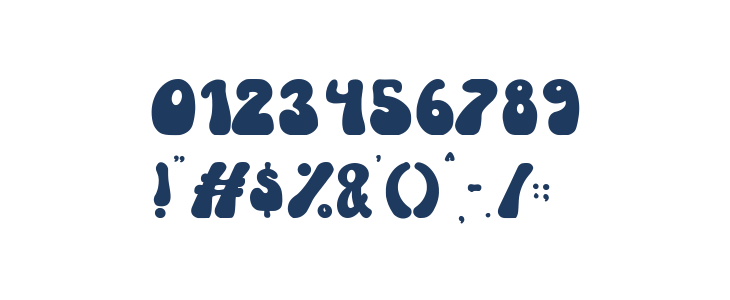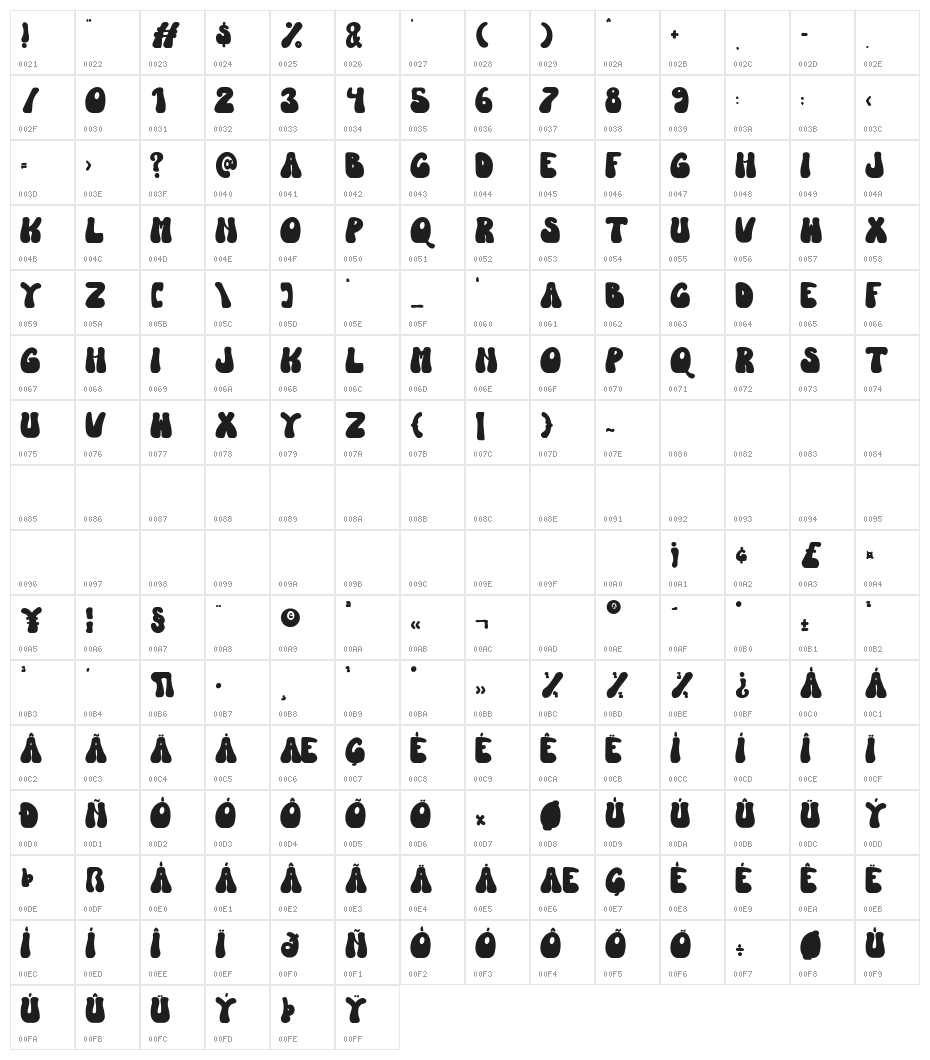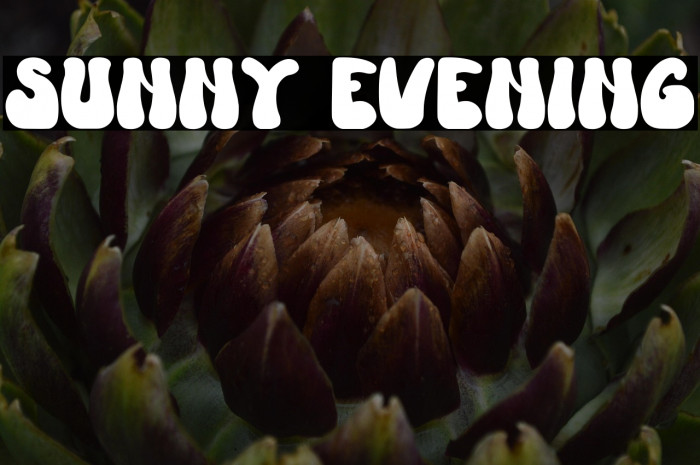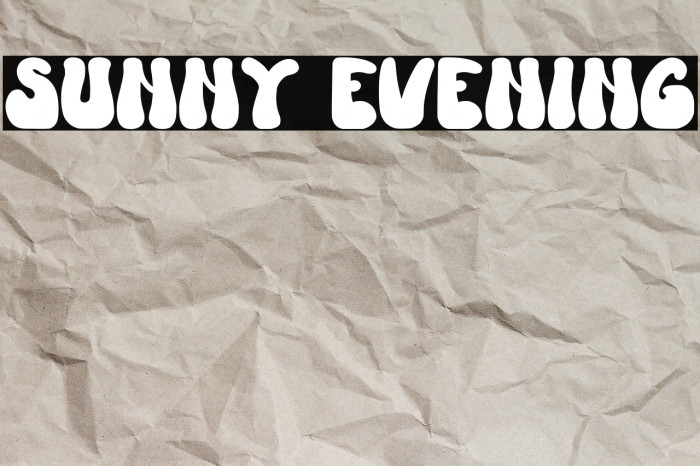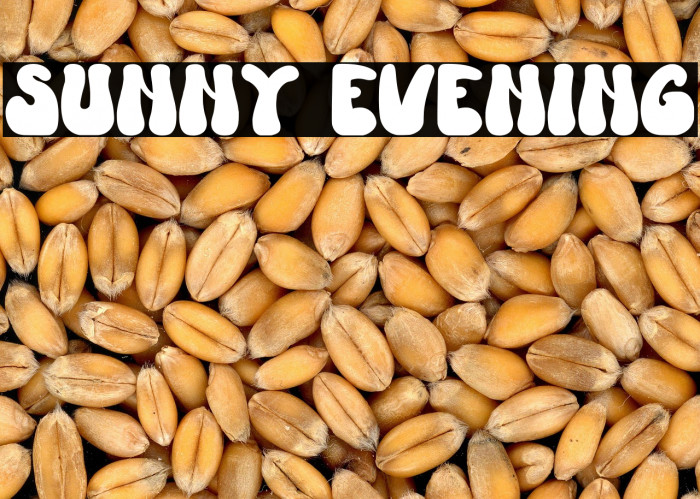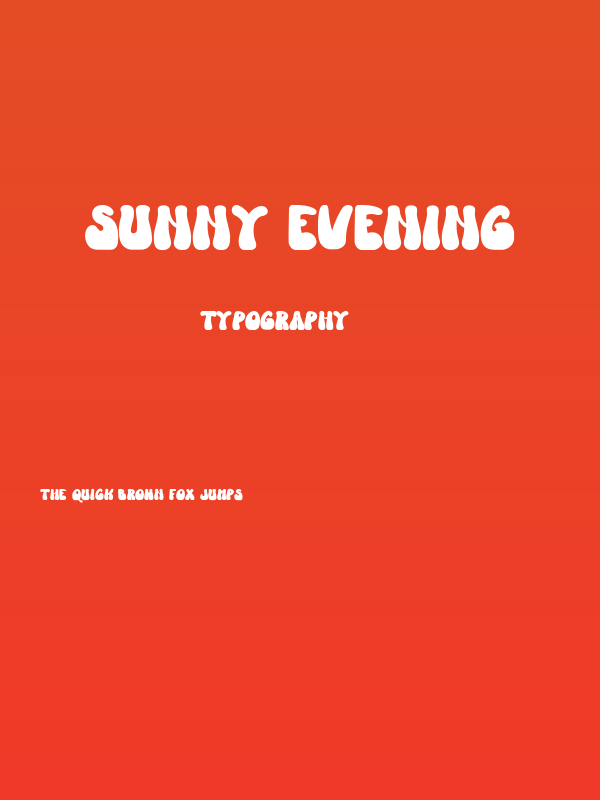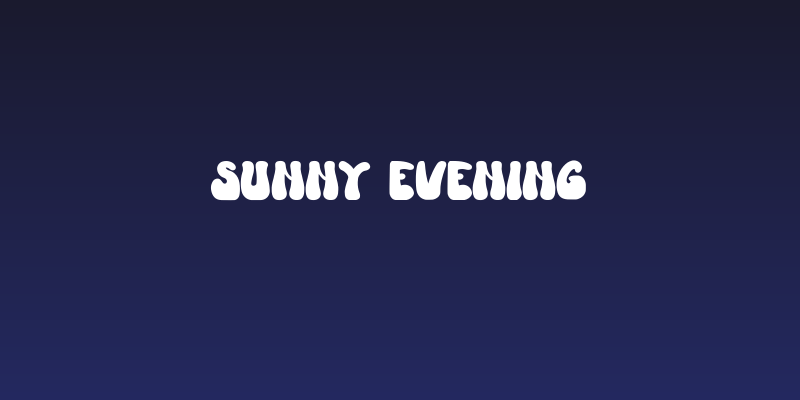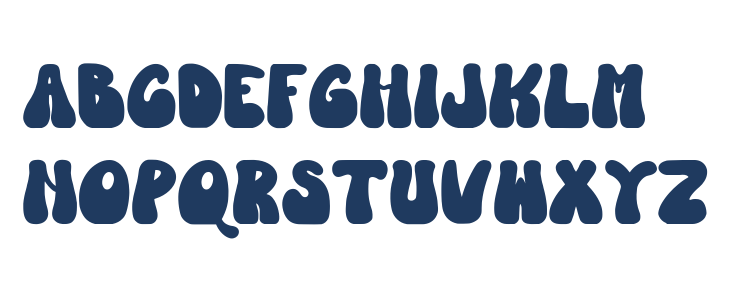
Sunny Evening Font
Sunny Evening Description
This playful and bold font features rounded, bubble-like characters that exude a sense of fun and whimsy. The letters are thick and have a soft, pillowy appearance, making them stand out with a friendly and approachable vibe. The uniformity in stroke width gives it a cohesive look, while the rounded edges add a touch of softness. This font is perfect for designs that aim to be eye-catching and engaging, such as children's books, playful branding, or event posters. Its unique style makes it ideal for projects that require a touch of creativity and imagination.
| Overall Style | Playful, Fun, Whimsical |
| Proposed Projects | Ideal for children's books, playful branding, event posters, and creative projects. |